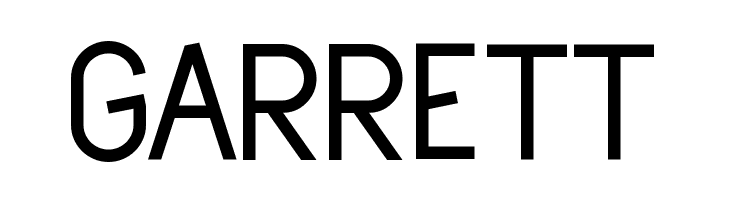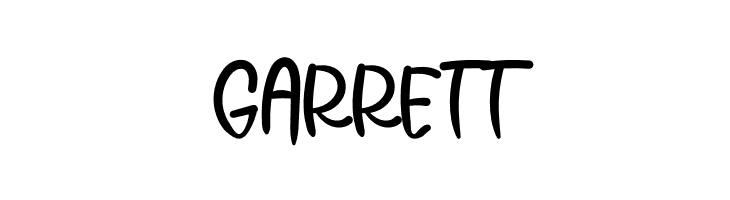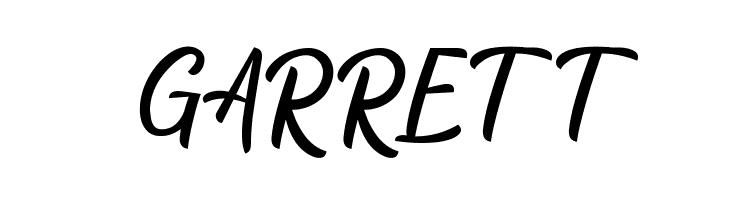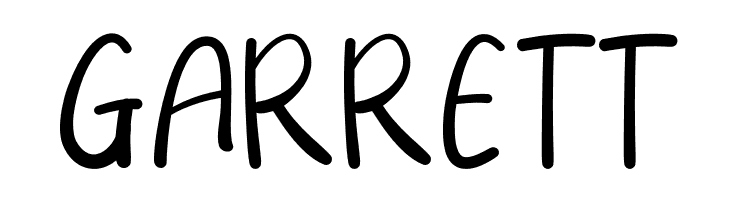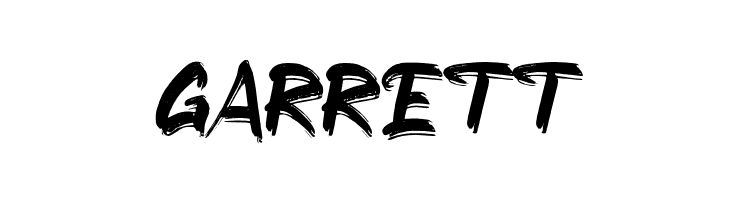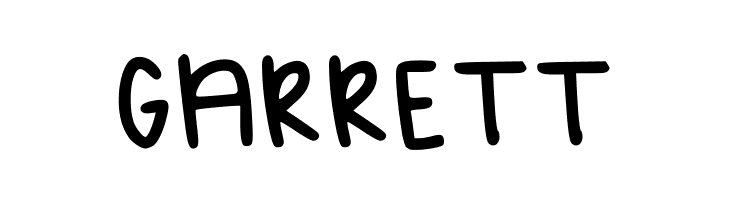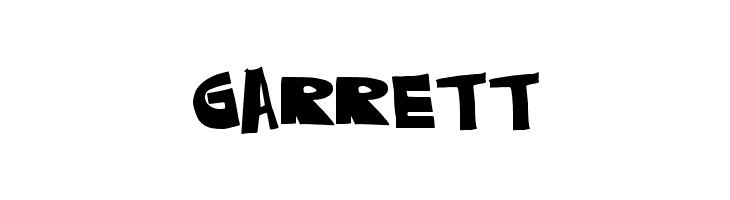
• Alvardo Regular
A bold, playful script font with a retro vibe and smooth curves.
• Alvarisky
A dynamic and flowing script font with elegant, cursive strokes.
• Alvaro Condensed
A modern, condensed sans-serif font with tall, narrow characters and uniform stroke width.
• ALVENS
An elegant and decorative font with ornate swirls and curves.
• Alverion
A dynamic and elegant script font with flowing, sophisticated strokes.
• Alveru - Personal Use
A modern, geometric sans-serif font with clean lines and a slightly condensed style.
• Alviena Regular
A playful, casual handwritten font with smooth, rounded edges.
• Alvifont
A casual, handwritten font with a smooth, flowing style.
• Alvifont
A casual, handwritten font with smooth, flowing curves and a natural, organic feel.
• Alviyani-demo Regular
An elegant script font with flowing cursive style and intricate flourishes.
• Alviyanidemo-Regular
A sophisticated script font with elegant swashes and flowing cursive letters.
• Always
A playful, casual handwritten font with smooth curves and a friendly appearance.
• Always
A cursive, handwritten-style font with elegant, flowing strokes.
• Always Be Loved
A playful, bold, and whimsical font with rounded, flowing letterforms.
• Always Been Right
A bold, rounded font with a 3D shadow effect, perfect for playful designs.
• Always Beside You
An ornate and flowing script font with intricate flourishes.